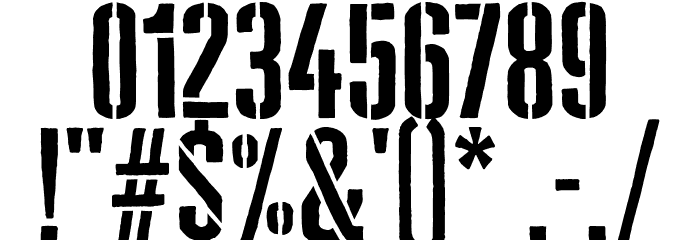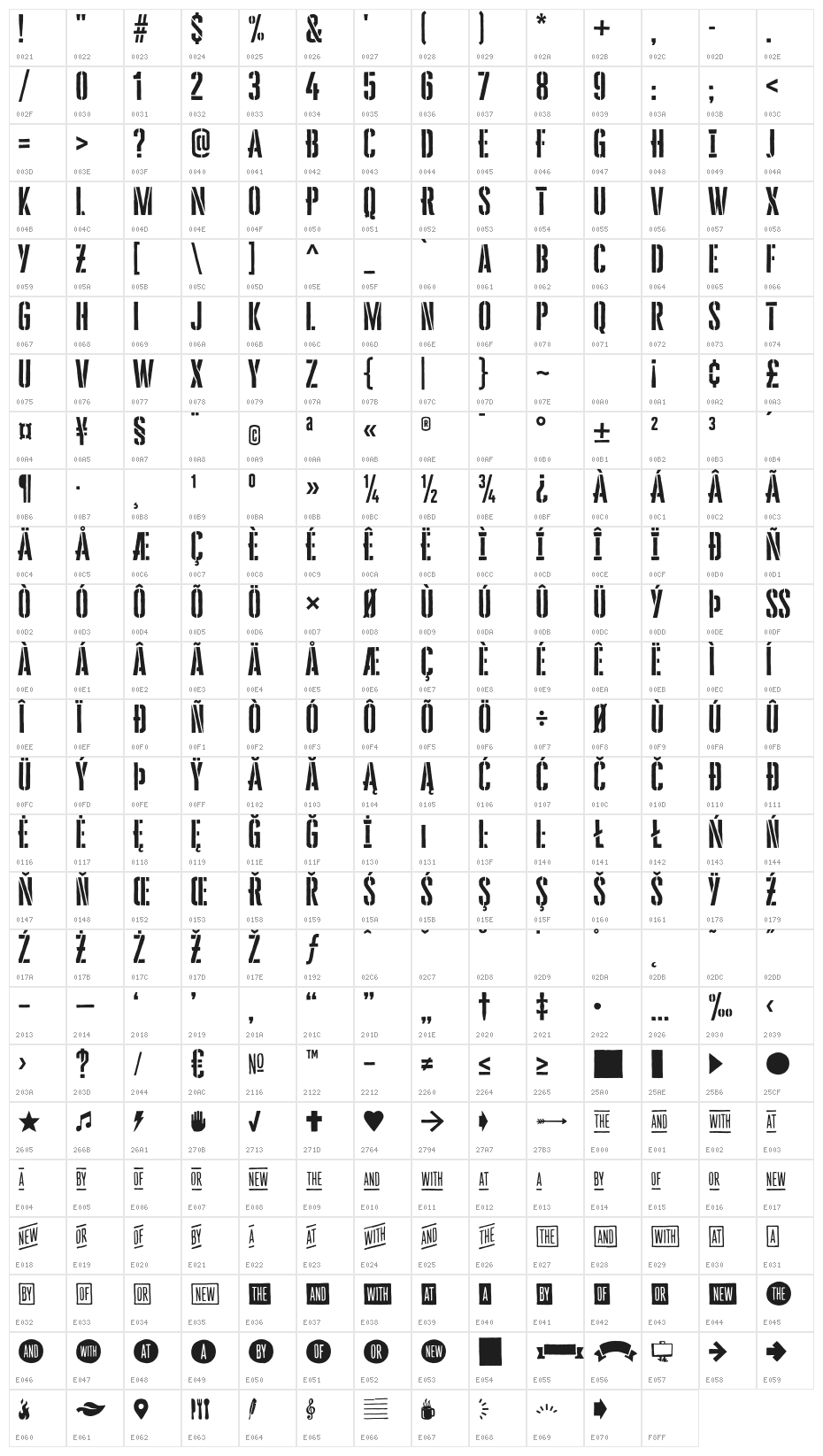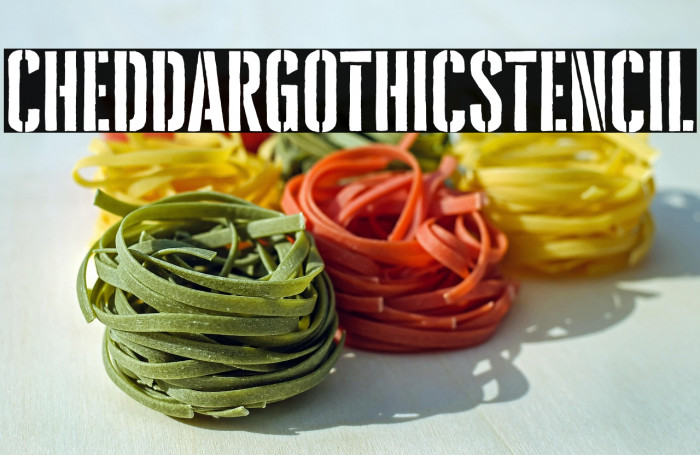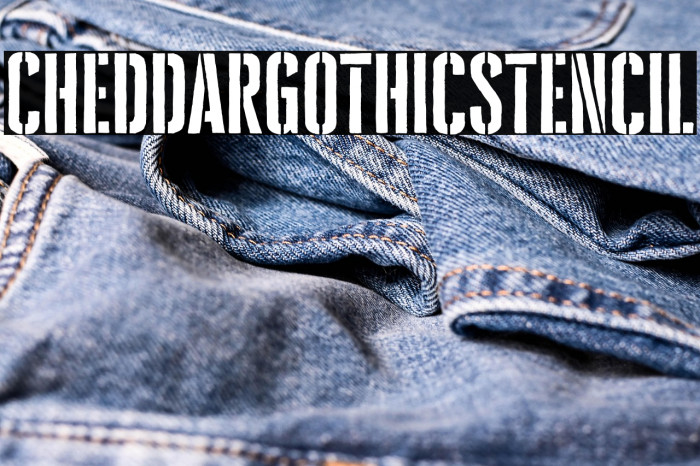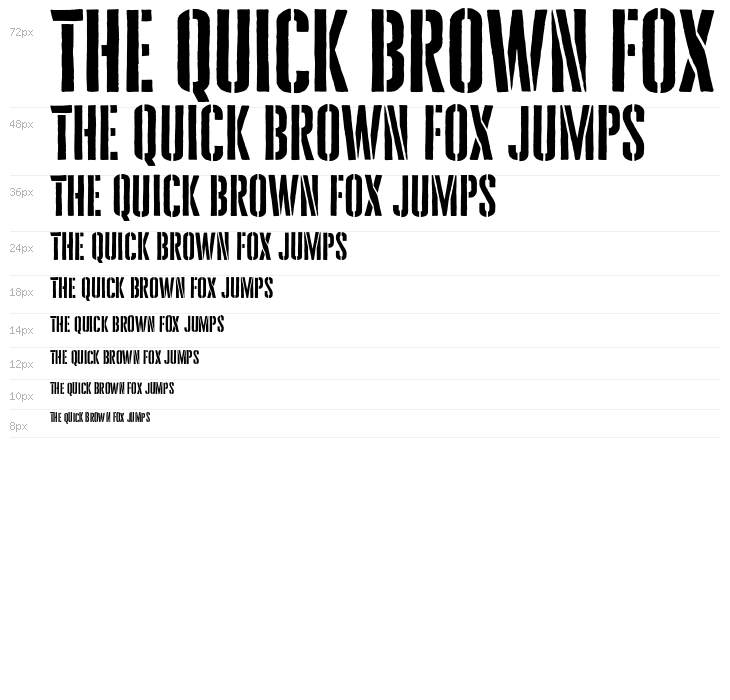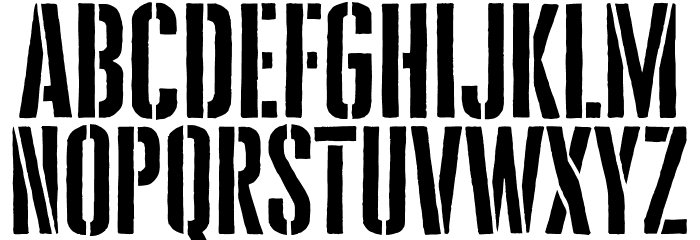
CheddarGothicStencil Font
CheddarGothicStencil Description
This font features a bold, stencil-like design with a strong, industrial aesthetic. The characters are constructed with thick, solid lines and distinct gaps that create a stencil effect. The uppercase and lowercase letters maintain a consistent width, giving the font a uniform appearance. The numbers and special characters follow the same design principles, ensuring cohesion across all glyphs. The overall style is rugged and impactful, making it ideal for projects that require a bold statement. The font's design is reminiscent of military or industrial signage, with a modern twist.
| Overall Style | Modern, Industrial |
| Proposed Projects | Ideal for branding, posters, signage, and any project requiring a strong, impactful visual presence. |